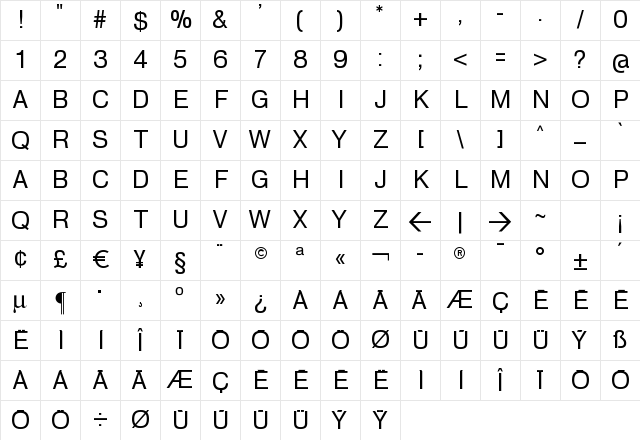
Complete HeldustryFTVBasic Regular glyph index. Displaying only characters natively supported by HeldustryFTVBasic Regular font.
HeldustryFTVBasic is a composed and adaptable typeface that performs quietly and consistently across a wide range of design contexts.
Pro Tip: Use HeldustryFTVBasic in both headline and body roles to test its range before committing to a single application.